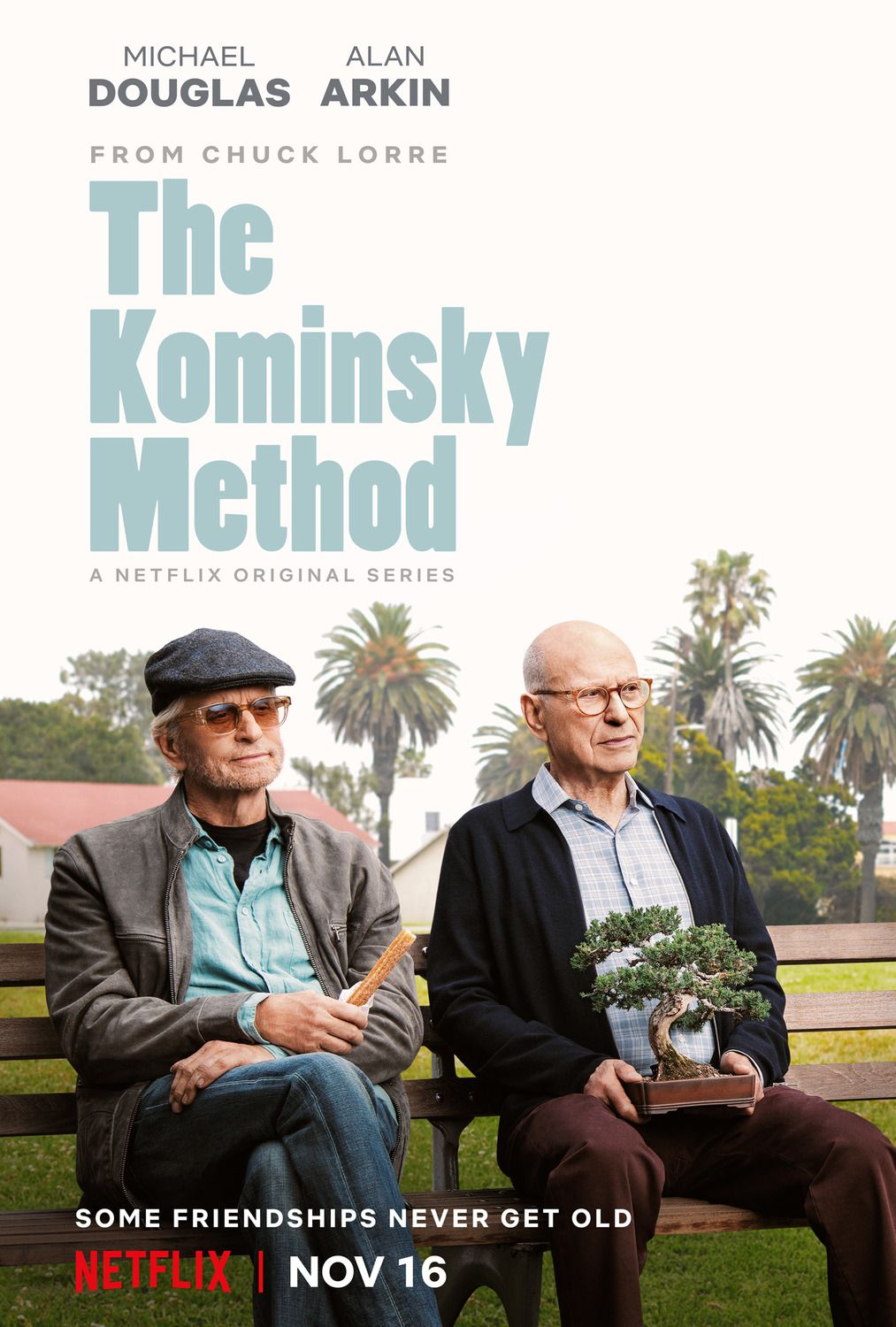
The Kominsky Method Font
ComedyThe Kominsky Method is a Netflix original comedy-drama series that follows the life and career of an aging acting coach, Sandy Kominsky, and his best friend, Norman Newlander, as they navigate the ups and downs of their personal life and career.
The Kominsky Method title on the poster seems to use a condensed gothic font called Poplar designed by by Barbara Lind in 1990. The other text on the poster features Netflix in-house designed font known as Netflix Sans in partnership with Dalton Maag foundry.